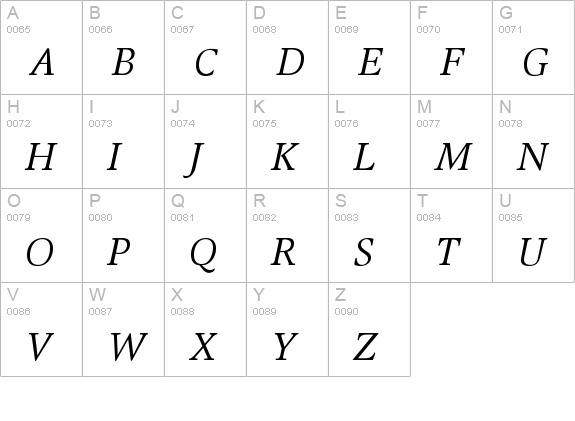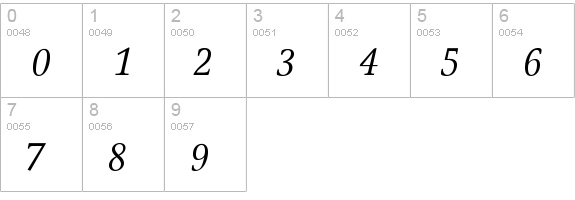
MagnaEF-Italic Font Details
MagnaEF-Italic is a distinctive, italic variant in the MagnaEF typeface family \xE2\x80\x94 well suited to design and typography projects.
Introducing MagnaEF-Italic, a beautifully crafted font that exudes elegance and sophistication. With its gracefully slanted letters and delicate curves, this italic font is perfect for adding a touch of style and refinement to any design project. MagnaEF-Italic is a versatile typeface that effortlessly blends both modern and classic elements. Its flowing strokes and slender forms create a sense of movement and grace, making it an ideal choice for invitations, logos, branding, and more. Whether you're aiming for a luxurious wedding invitation or a high-end fashion brand, this font will elevate your design to new heights. Not only does MagnaEF-Italic possess a stunning aesthetic appeal, but it also offers practicality and functionality. With a wide range of characters, including uppercase and lowercase letters, numbers, symbols, and punctuation, this font provides endless creative possibilities. It is also compatible with various design software, ensuring seamless integration into your projects. What's more, MagnaEF-Italic is freely available to download at FontsMarket.com. This means that you can enjoy all its beauty and versatility without any cost. Whether you're a professional designer or a DIY enthusiast, this free font allows you to create stunning visuals without breaking the bank. So why wait? Enhance your designs with the timeless charm of MagnaEF-Italic. Download it today from FontsMarket.com and let your creativity soar to new heights.